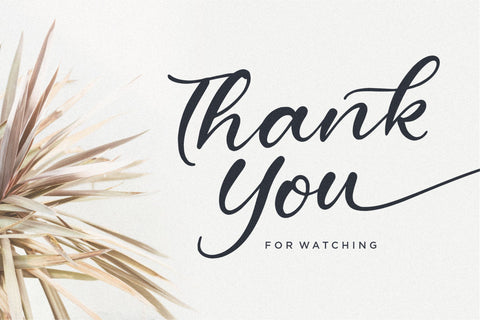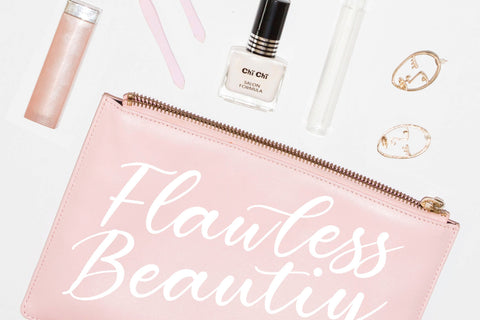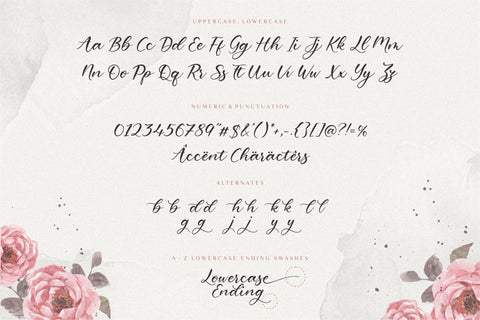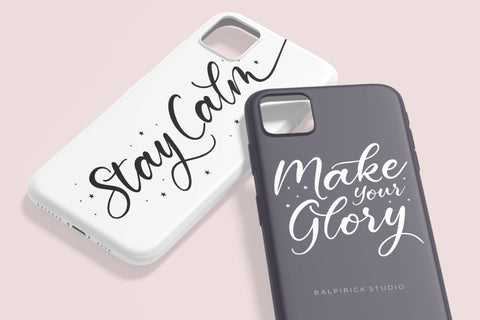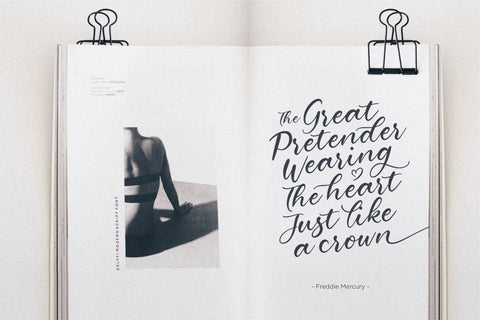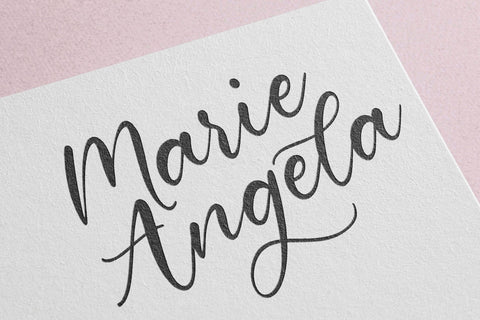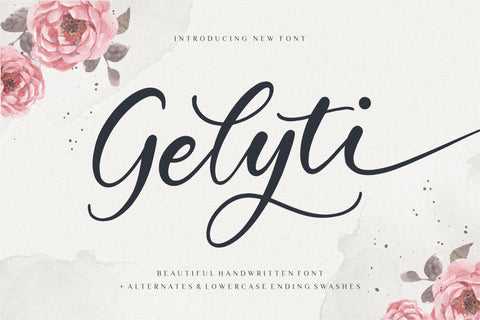
Gelyti is a Beautiful Handwritten Font
Proudly Present, Gelyti Font.
Gelyti is a Beautiful Handwritten Font.
Gelyti is perfect for product packaging, branding project, megazine, social media, wedding, or just used to express words above the background.
Alternates & Lowercase Ending Swashes.